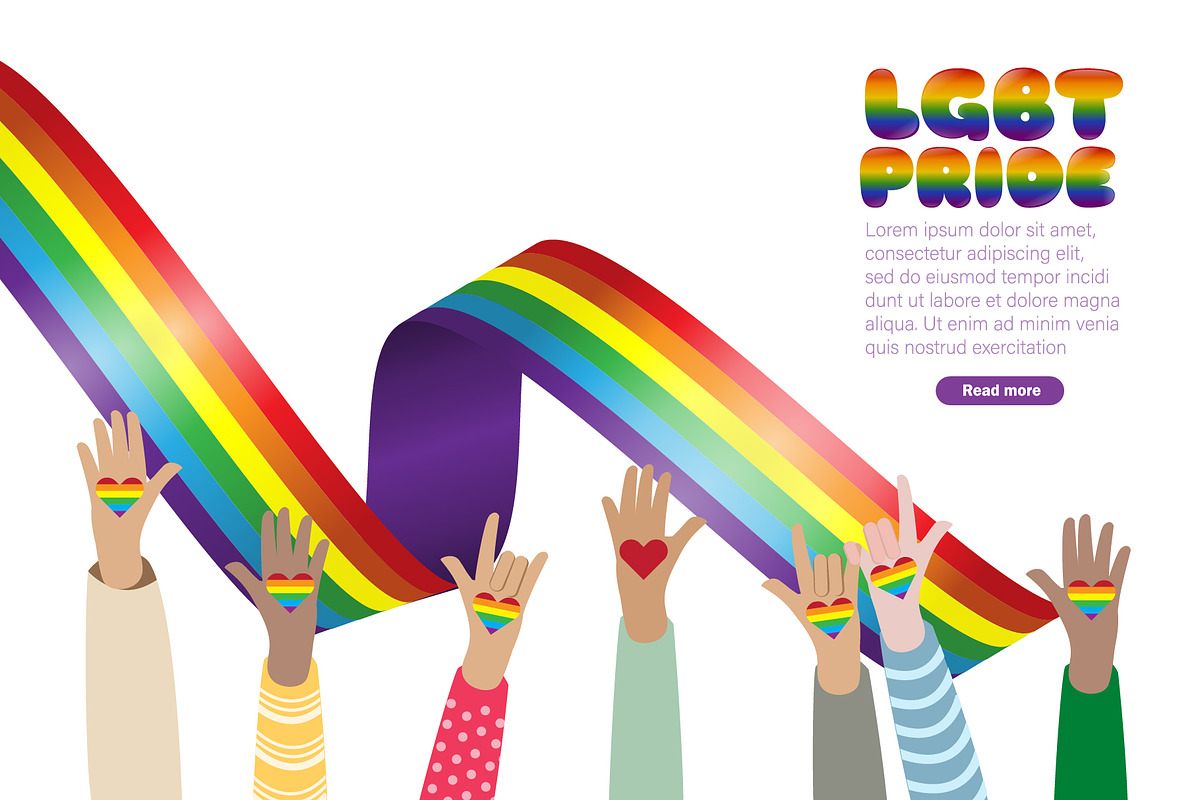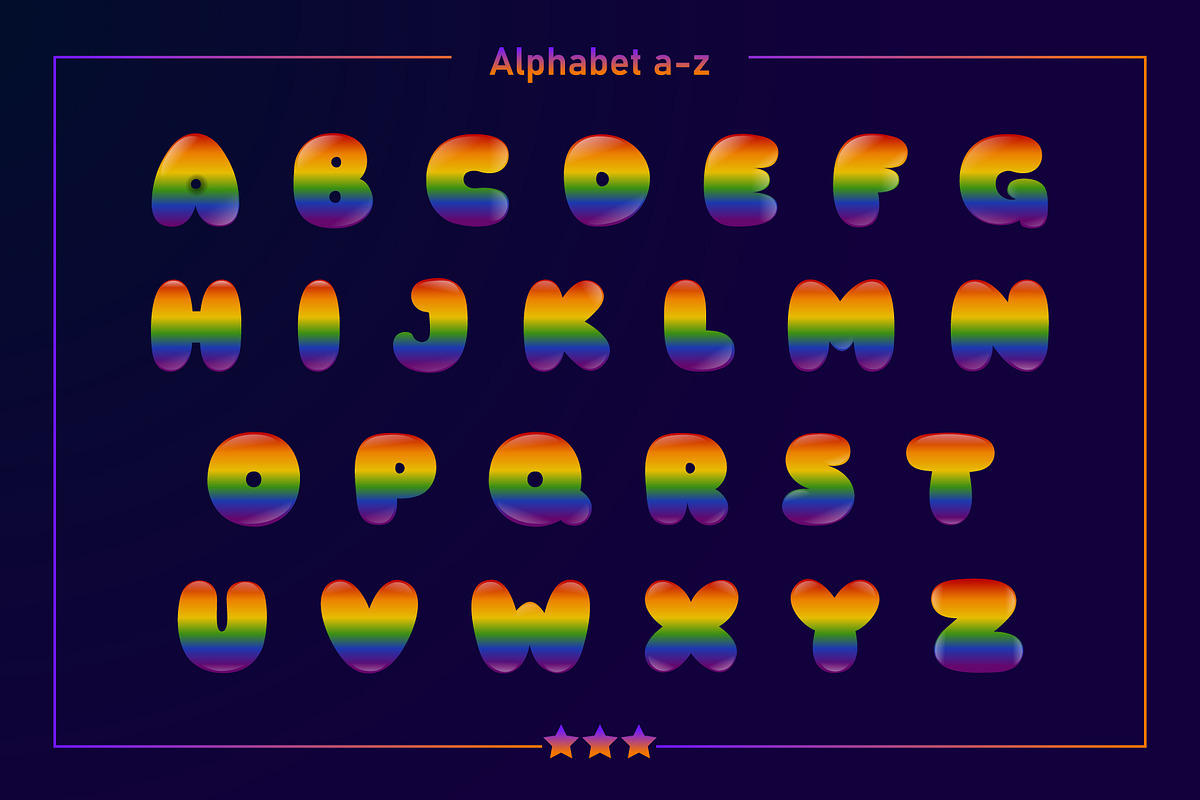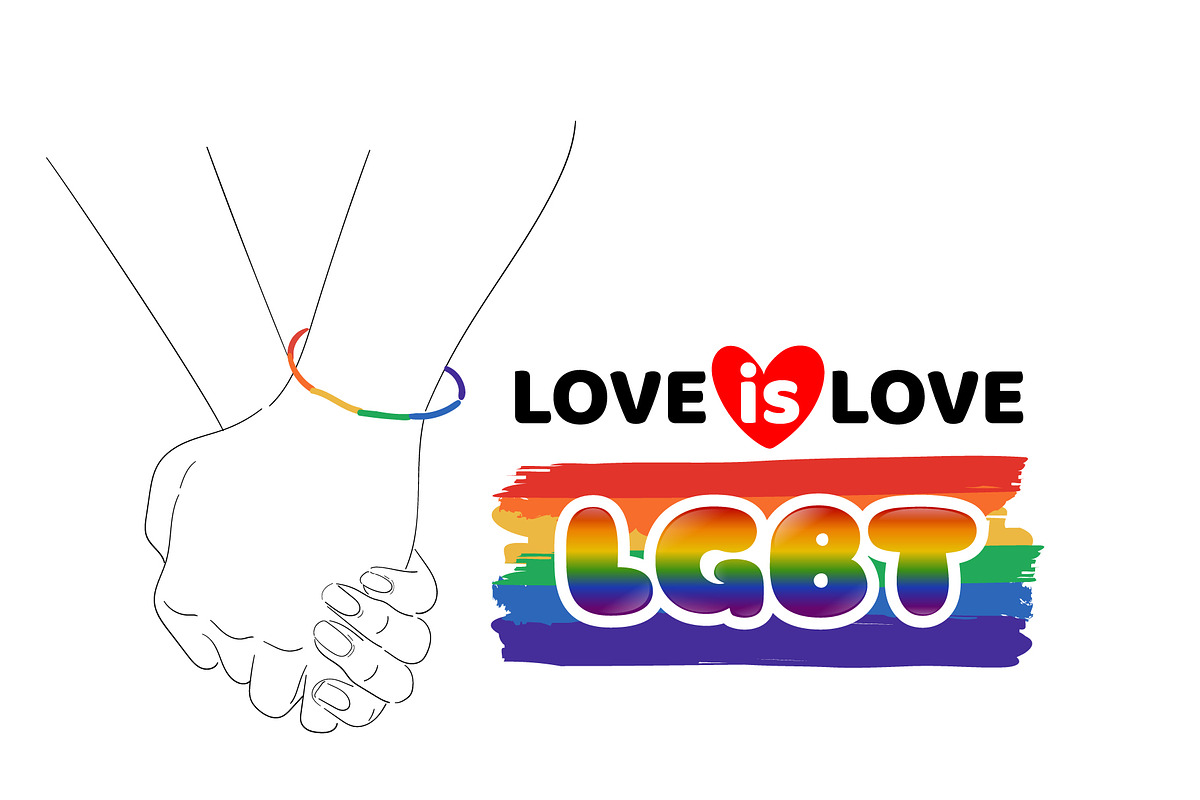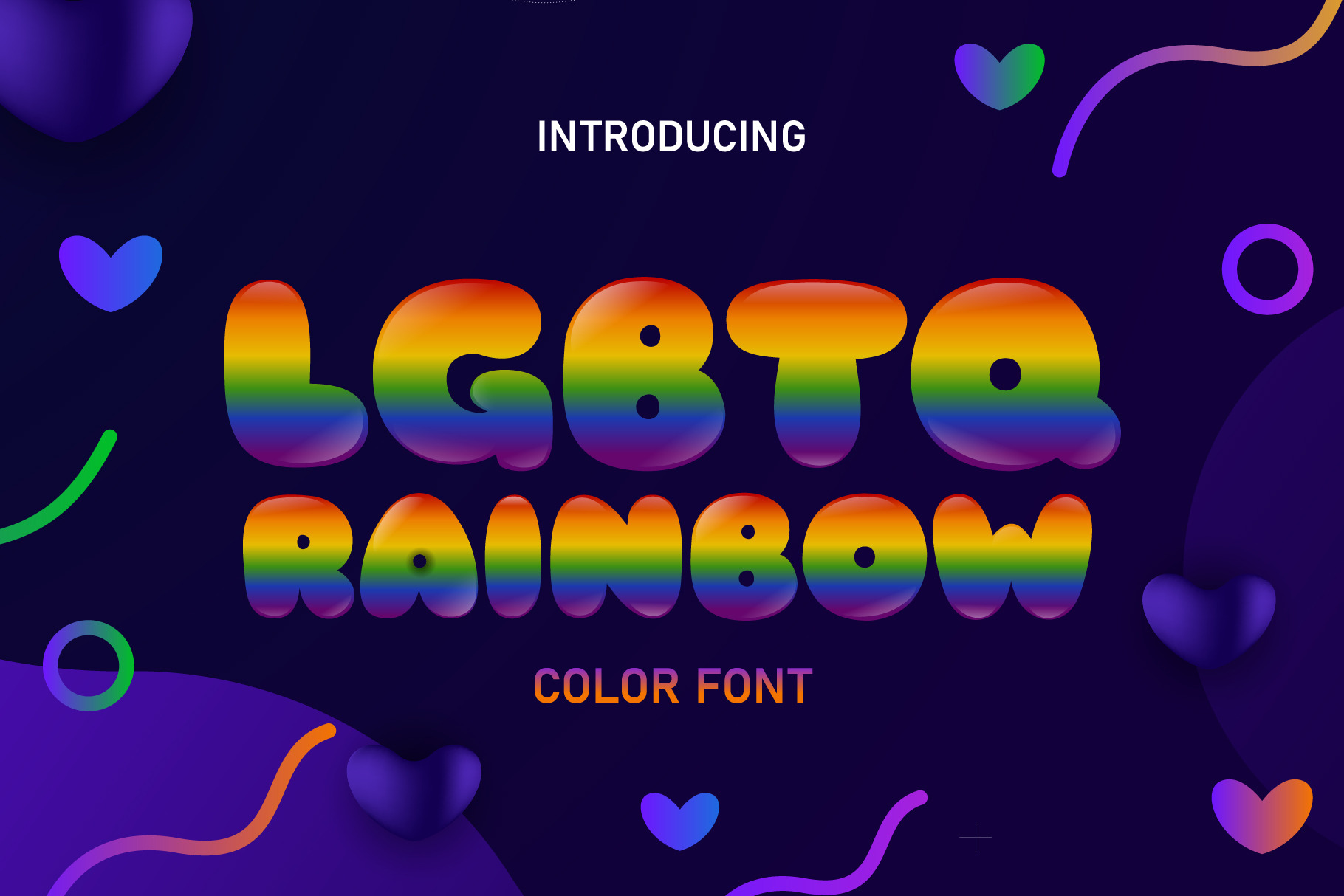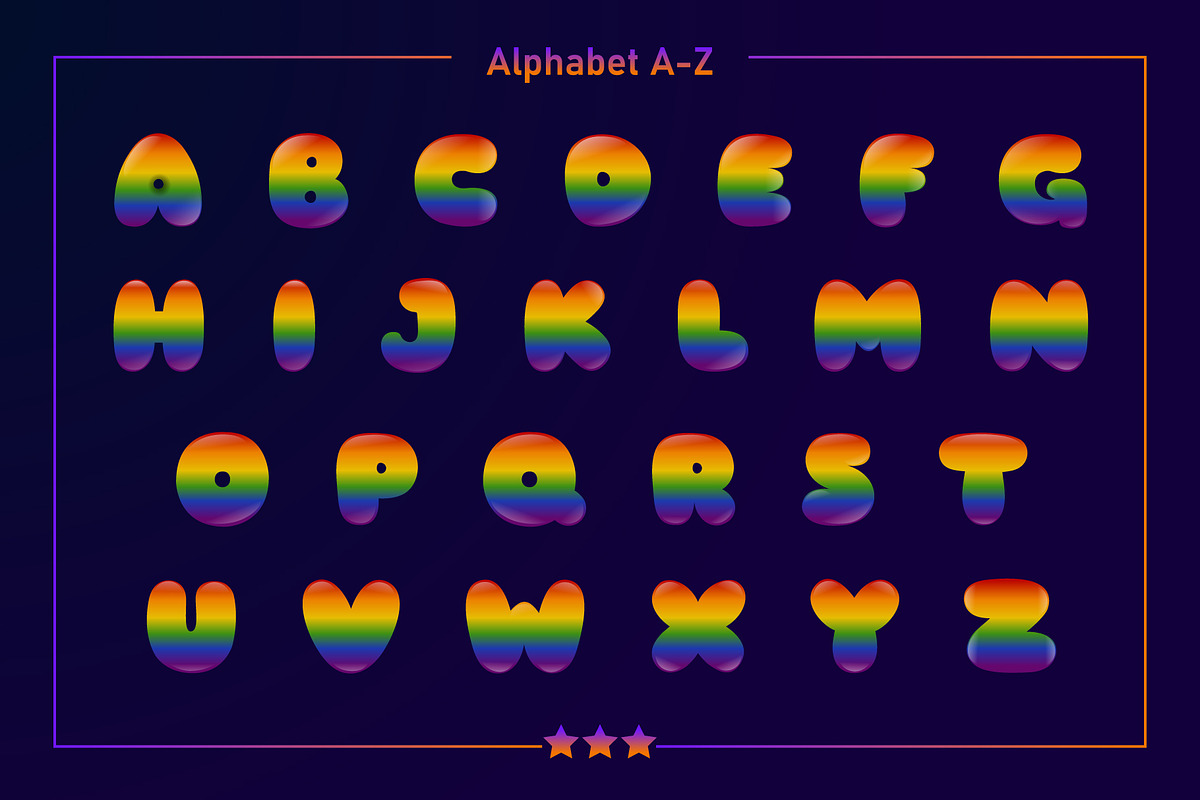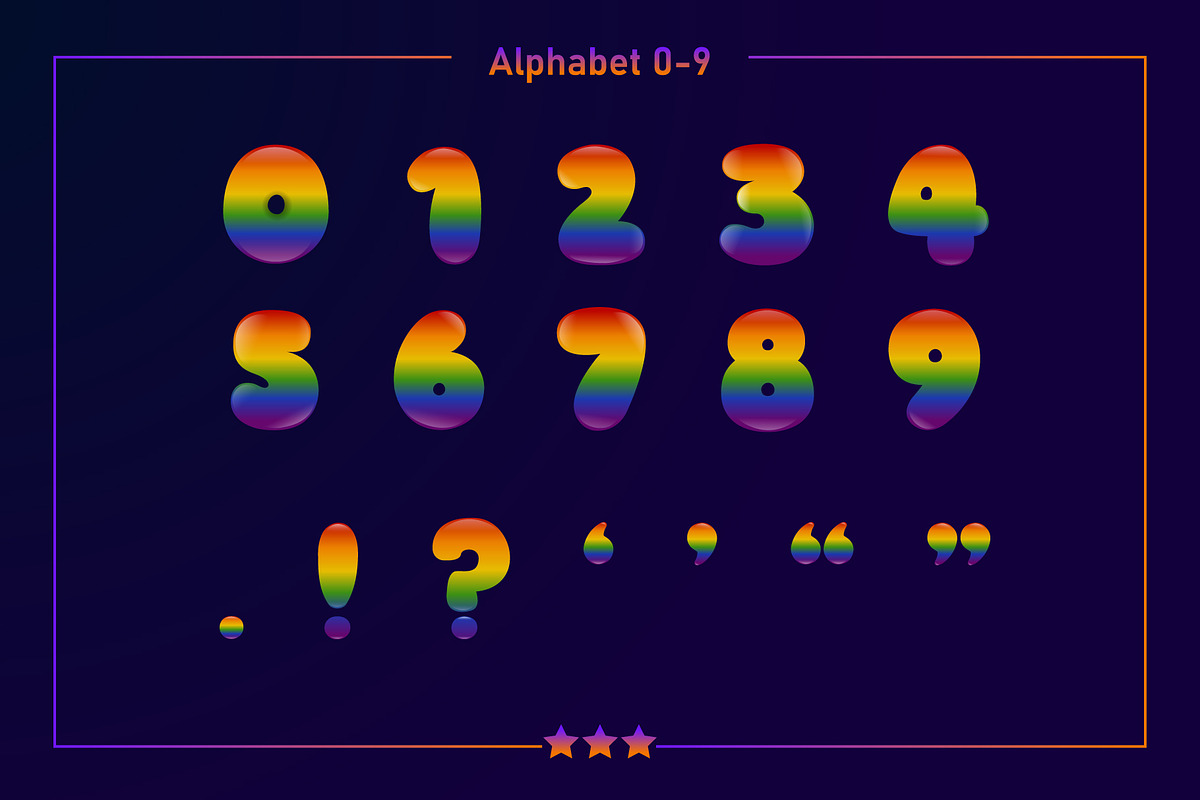
LGBTQ Rainbow Color Fonts
LGBTQ Rainbow is a bubble rainbow, beautiful and cute color font. Design your product using this unique font and share your project for others to be inspired by your work!